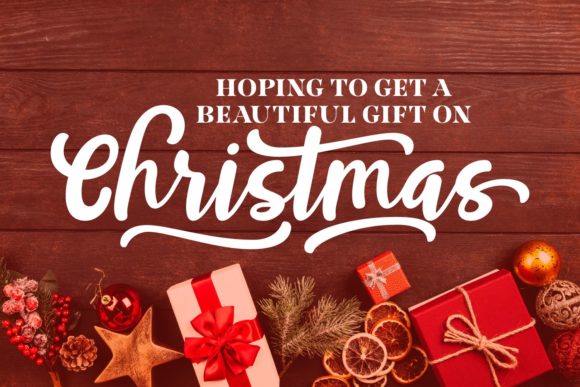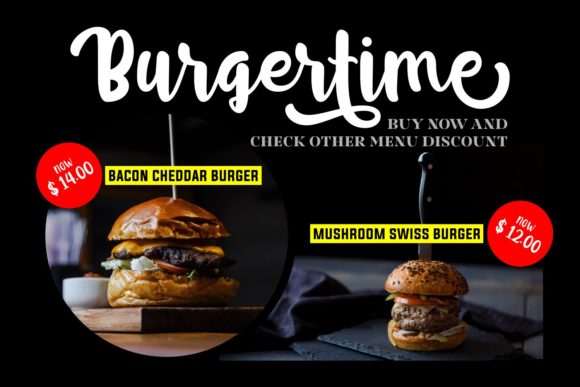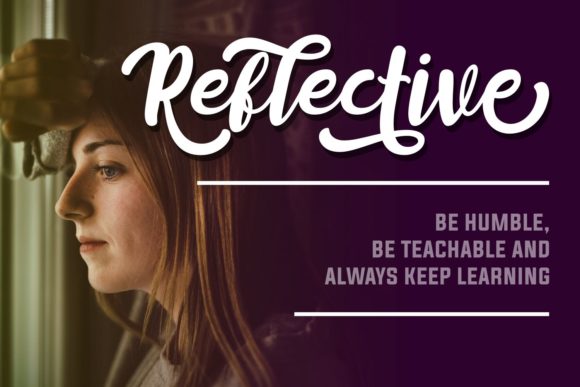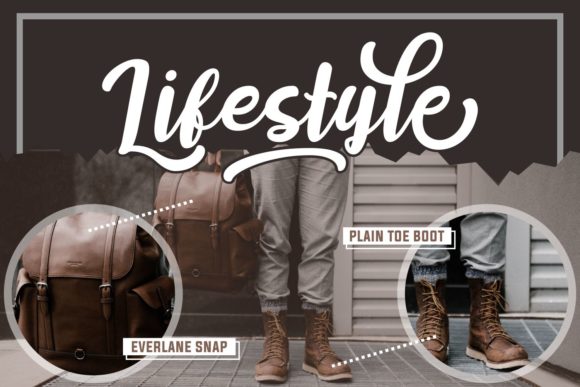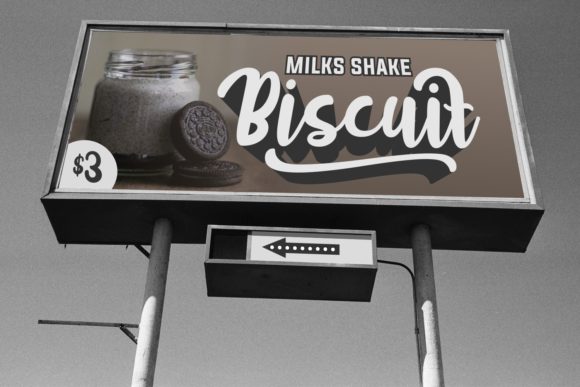
HomeScript FontsMaley Cylar Font Script Fonts Maley Cylar Font FacebookXPinterestWhatsApp Maley Cylar Font Poster 2 Maley Cylar Font Poster 3 Maley Cylar Font Poster 4 Maley Cylar Font Poster 5 Maley Cylar Font Poster 6 About Maley Cylar Font Maley Cylar is a stunningly bold and fun script that will elevate any design project. DOWNLOAD NOW People also explored Juttely Font Delight Font Love You Forever Font The Beach Boys Font Stamp Font Distance Relationship Font Love Amore Font Milk and Wild Font Technicolor 339 0 TagsMaley Cylar Font Previous articleEverlove FontNext articleMagfirah Font LEAVE A REPLY Cancel reply Comment: Please enter your comment! Name:* Please enter your name here Email:* You have entered an incorrect email address! Please enter your email address here Website: Save my name, email, and website in this browser for the next time I comment. Personal Use Free Gdynia Personal Use Free Read more about this font Vanilla Whale Personal Use Free Read more about this font Boldist Personal Use Free Read more about this font Cline Personal Use Free Read more about this font BLOG 5 Fonts That Will Dominate Design Trends in 2026 5 Fonts for 2026 That Will Dominate Design Trends Typography plays a critical role in visual communication, and as we look ahead to 2026, it’s... Modern Sans-Serif Fonts That Brands Love in 2025 Free vs Paid Fonts: Why Investing in Premium Fonts Is Worth It Best Fonts for T-Shirt Design – Top 2025 Picks